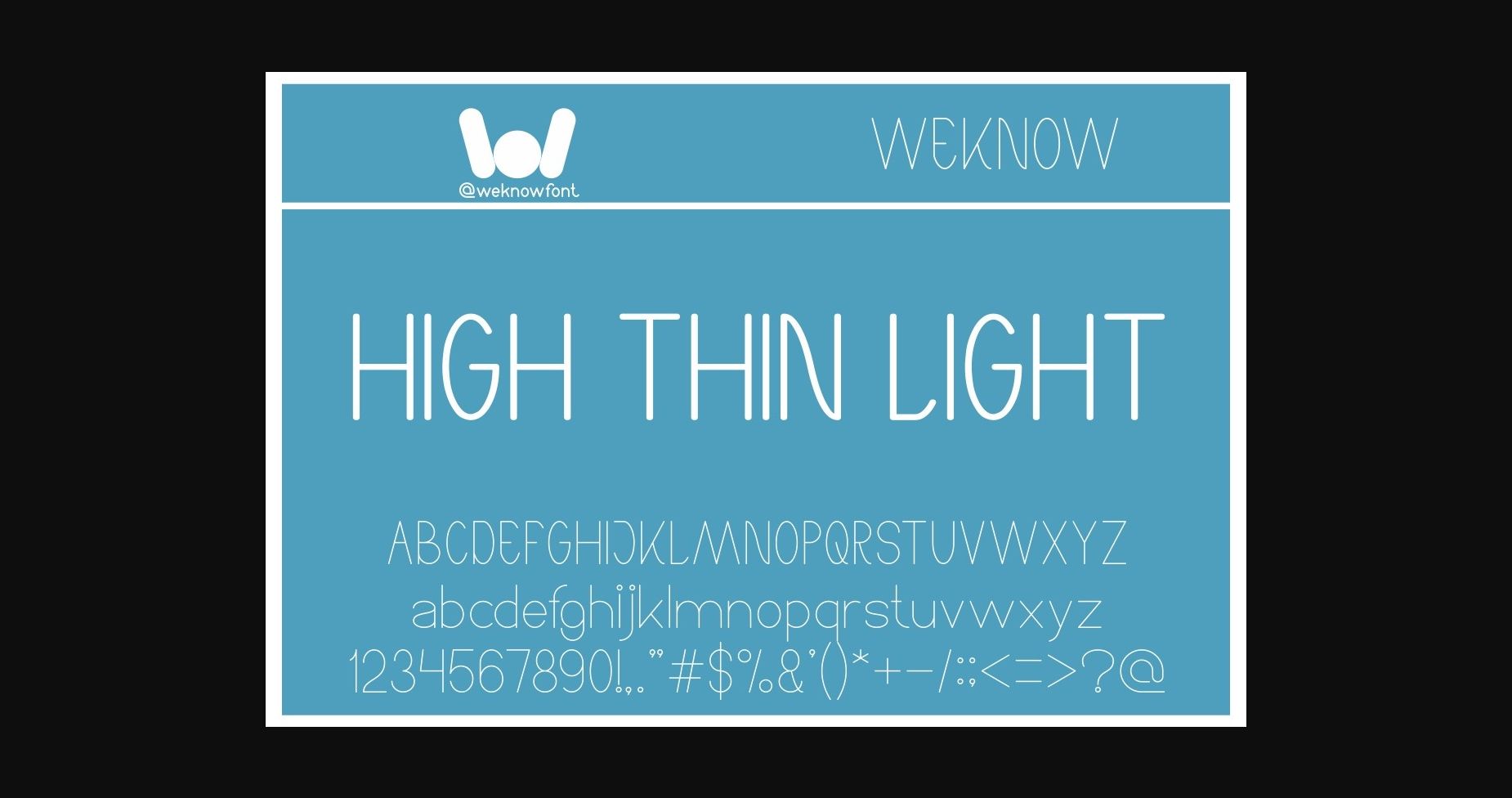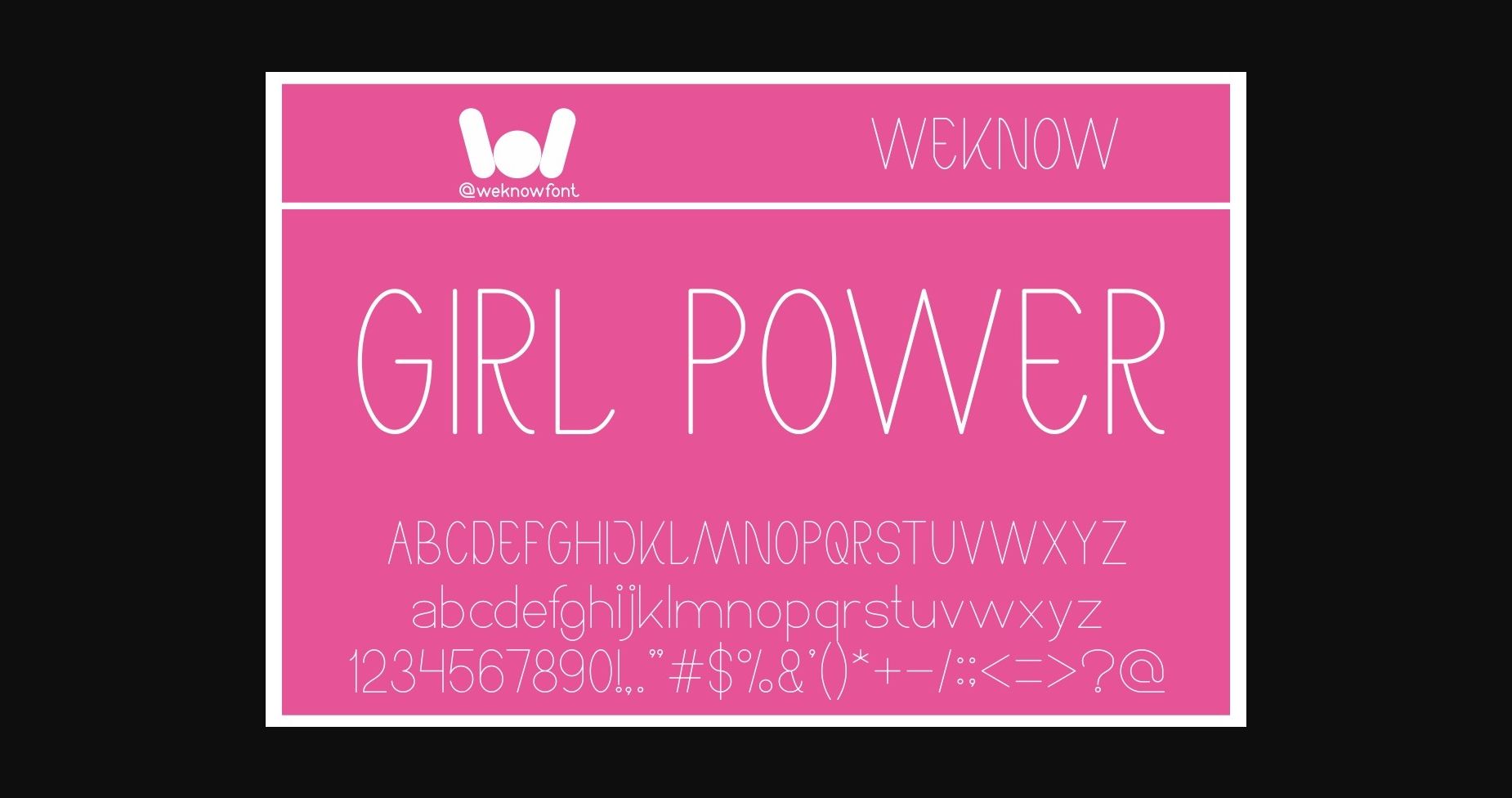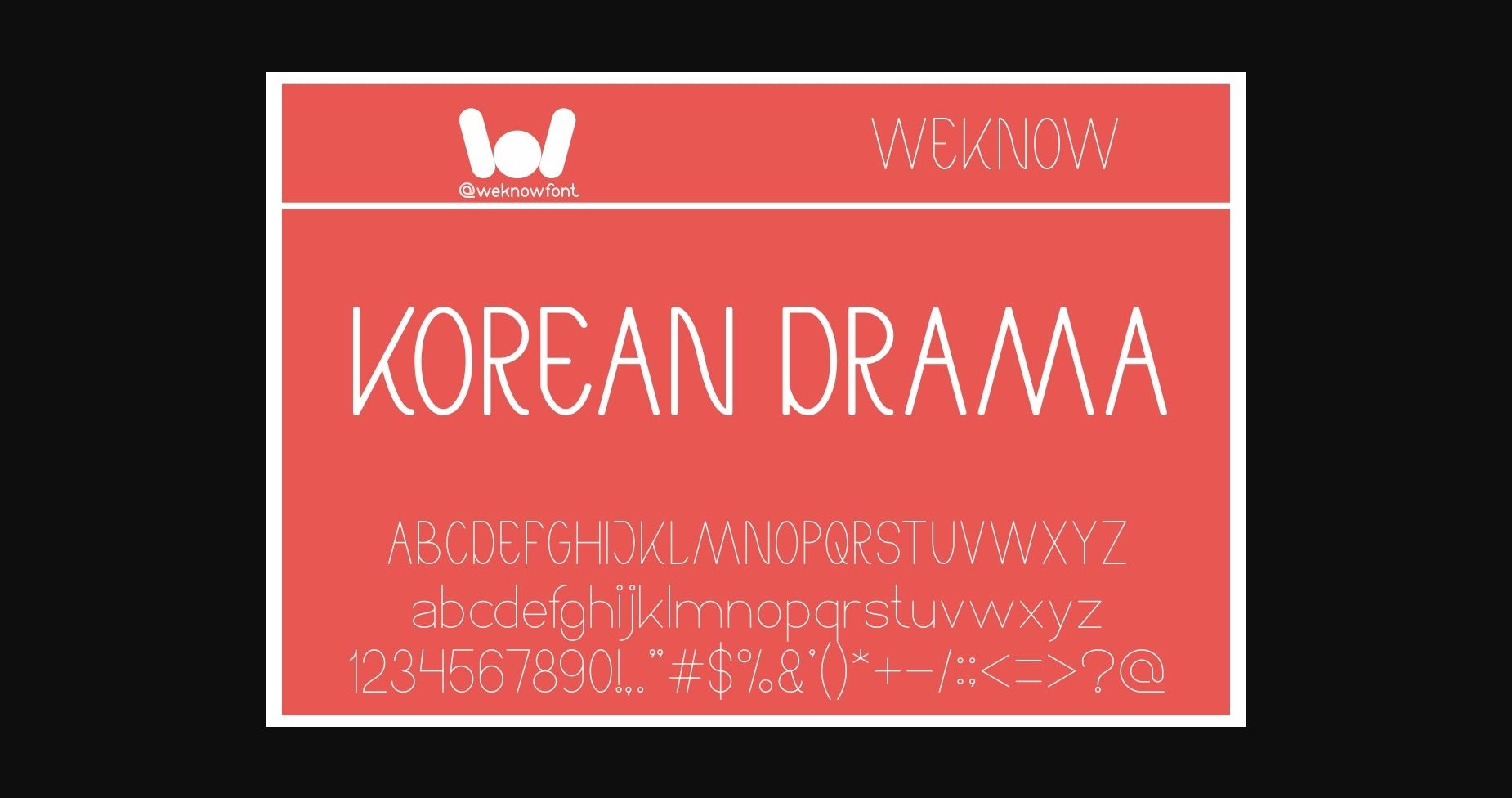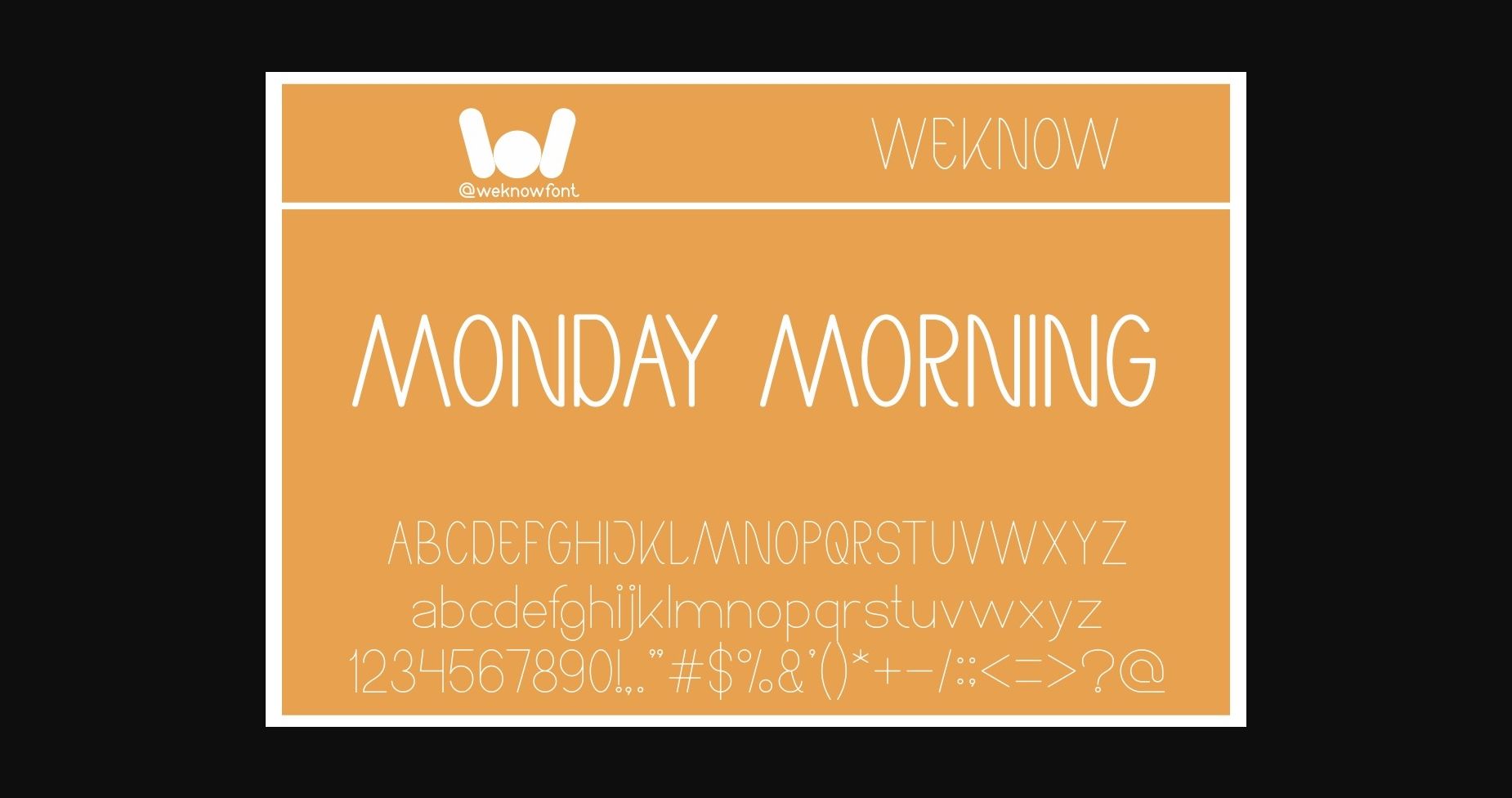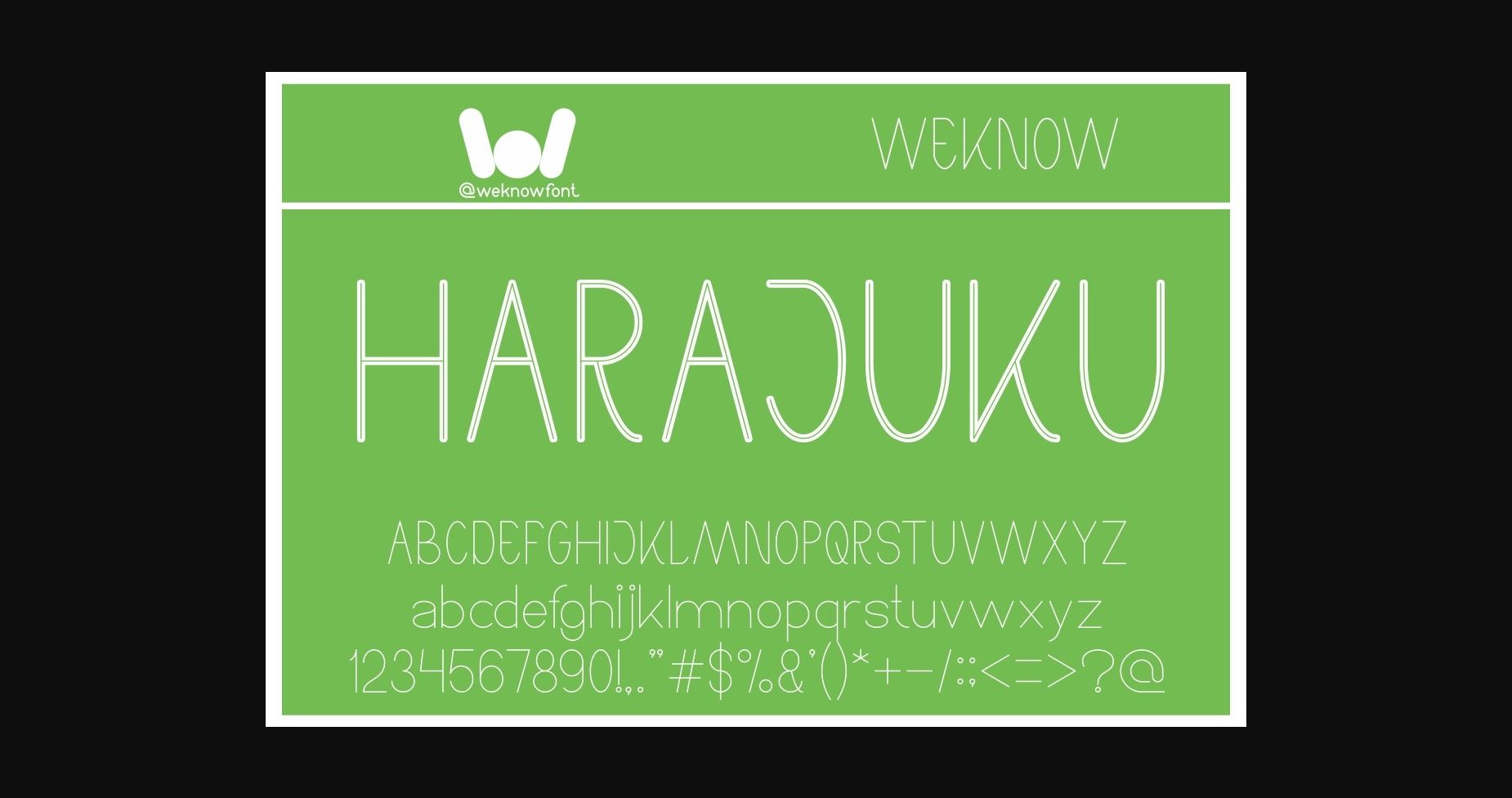
HomeSans Serif FontsHigh Thin Light Font Sans Serif Fonts High Thin Light Font FacebookXPinterestWhatsApp 1 of 7 ... High Thin Light Font Poster 2... High Thin Light Font Poster 3... High Thin Light Font Poster 4... High Thin Light Font Poster 5... High Thin Light Font Poster 6... High Thin Light Font Poster 7... About High Thin Light Font High Thin Light is a minimal and neat sans serif font. It can easily be matched to an incredibly large set of projects, so add it to your creative ideas and notice how it makes them stand out! DOWNLOAD NOW People also explored Morning Aspiration Font Alvairo Brilliante Font Visia Font Devalani Font Reingttoon Font Valentines Bird Monogram Font Magic Winter Font Fausta Font Casanova Font 462 0 TagsHigh Thin Light Font Previous articleChristine FontNext articleAveira Font LEAVE A REPLY Cancel reply Comment: Please enter your comment! Name:* Please enter your name here Email:* You have entered an incorrect email address! Please enter your email address here Website: Save my name, email, and website in this browser for the next time I comment. Personal Use Free Susanna Personal Use Free Read more about this font Artisan Signature Personal Use Free Read more about this font Happy Garden Personal Use Free Read more about this font Vembazax Rm Personal Use Free Read more about this font BLOG How to Cut Any Font on Cricut: Convert a Font to SVG (Free) Turn any font into a clean SVG so it cuts crisp on Cricut - a quick 3-step workflow using a free font-to-SVG tool. Free vs Paid Fonts: Why Investing in Premium Fonts Is Worth It Where to Buy American Fonts Online in 2024 Fonts That Capture the Spirit of New York City